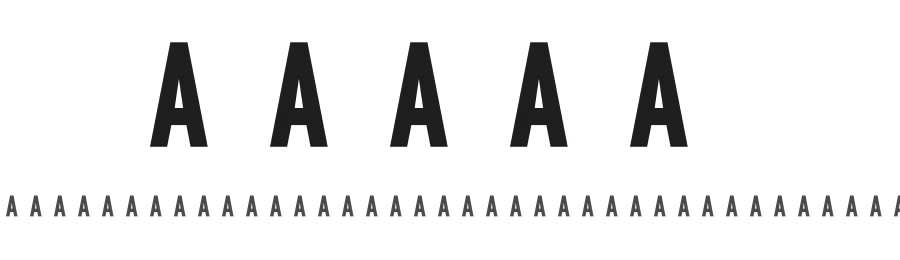
About Longfont
Longfont is a no-frills sans-serif typeface in regular weight, created by longfont. With its clean, direct construction, this font provides clarity and legibility in projects that prioritize readability over visual flourish.
The 96-glyph character set covers the essentials for everyday typography work. Its unpretentious approach works well in web design headers, social media graphics, and app interface labels where straightforward legibility is critical. Blog title treatments, email newsletters, and digital product packaging all benefit from its neutral, functional character. Print designers will find it equally useful in business card layouts and simple poster designs where message clarity outweighs the need for ornamental effects. Combined with more expressive typefaces, Longfont creates clean visual hierarchy without adding visual noise, making it a reliable workhorse for designers who value substance over decoration.
Longfont is a versatile sans-serif font that works for both headings and body text. Pair it with a contrasting serif or slab serif font to add visual interest and a clear distinction between titles and body copy.